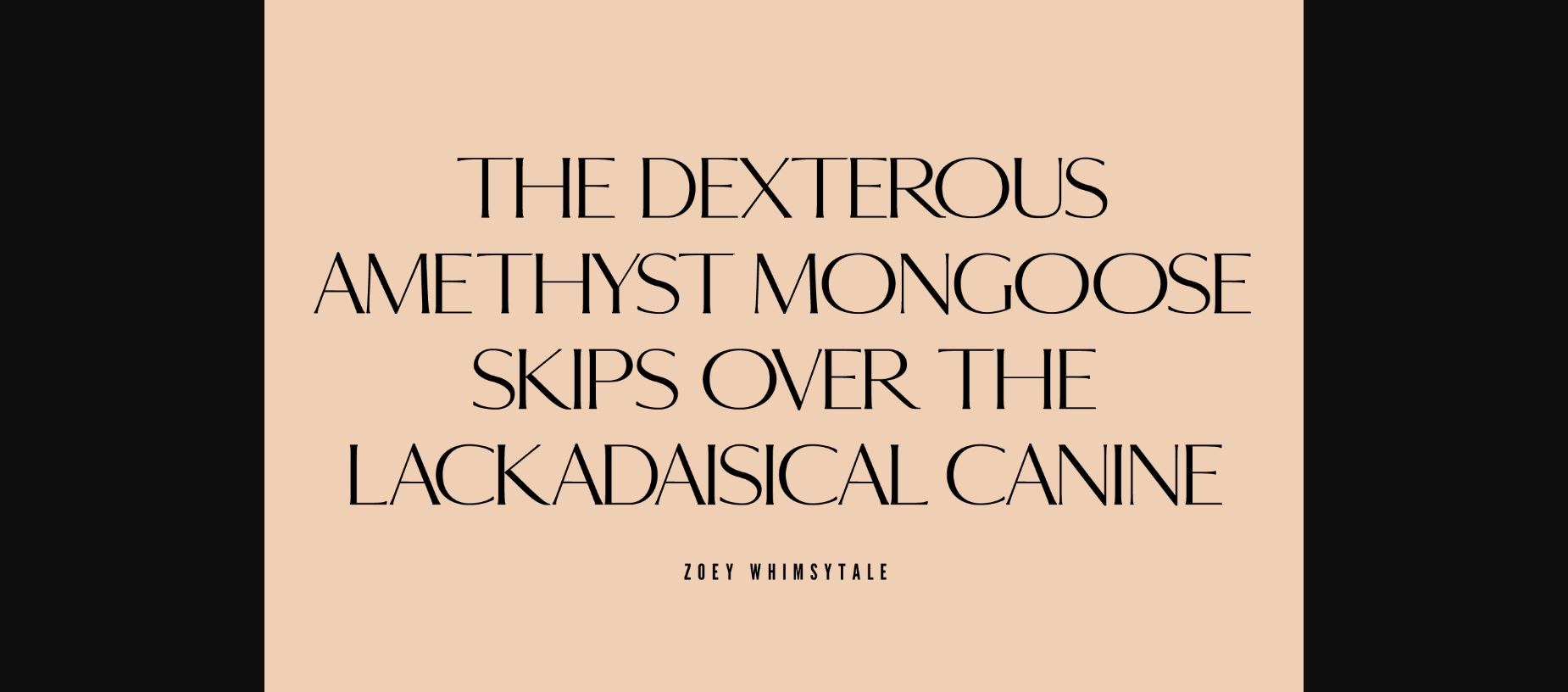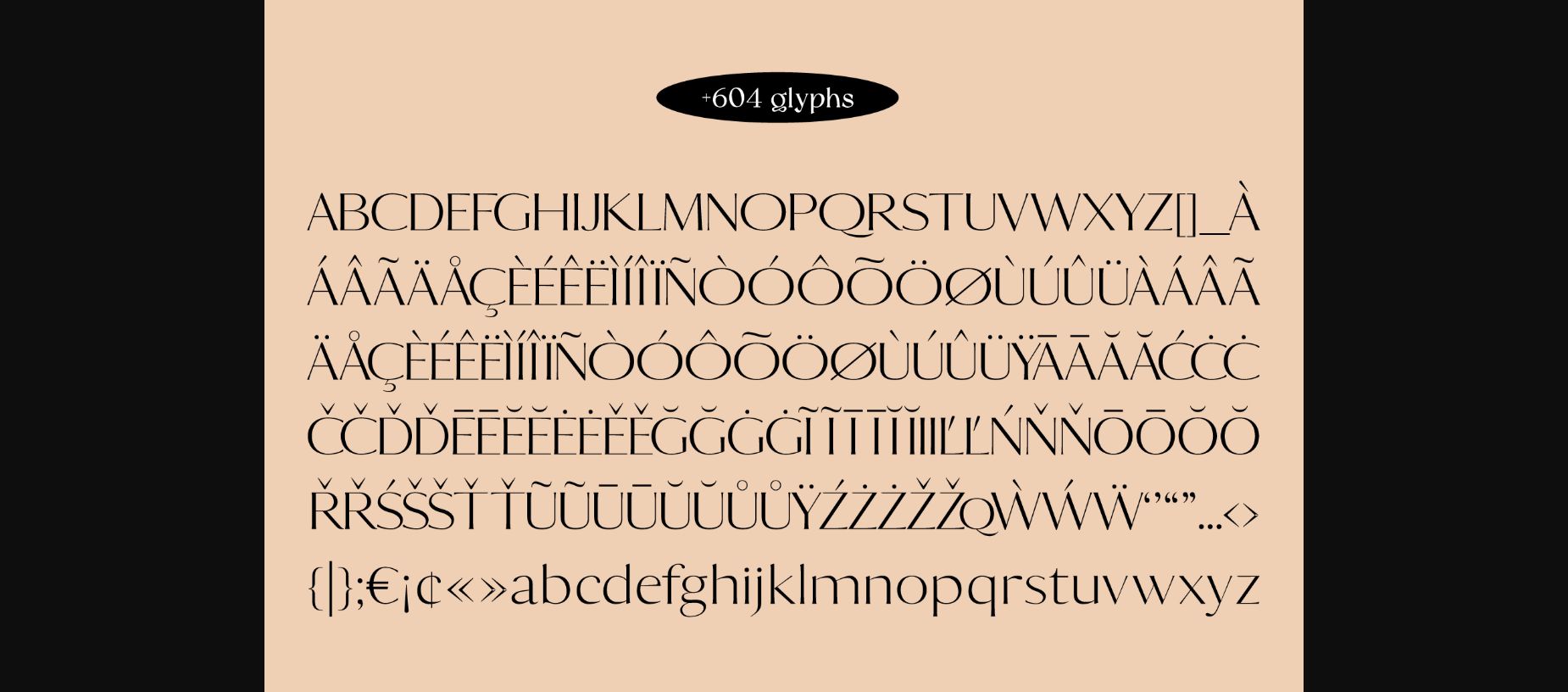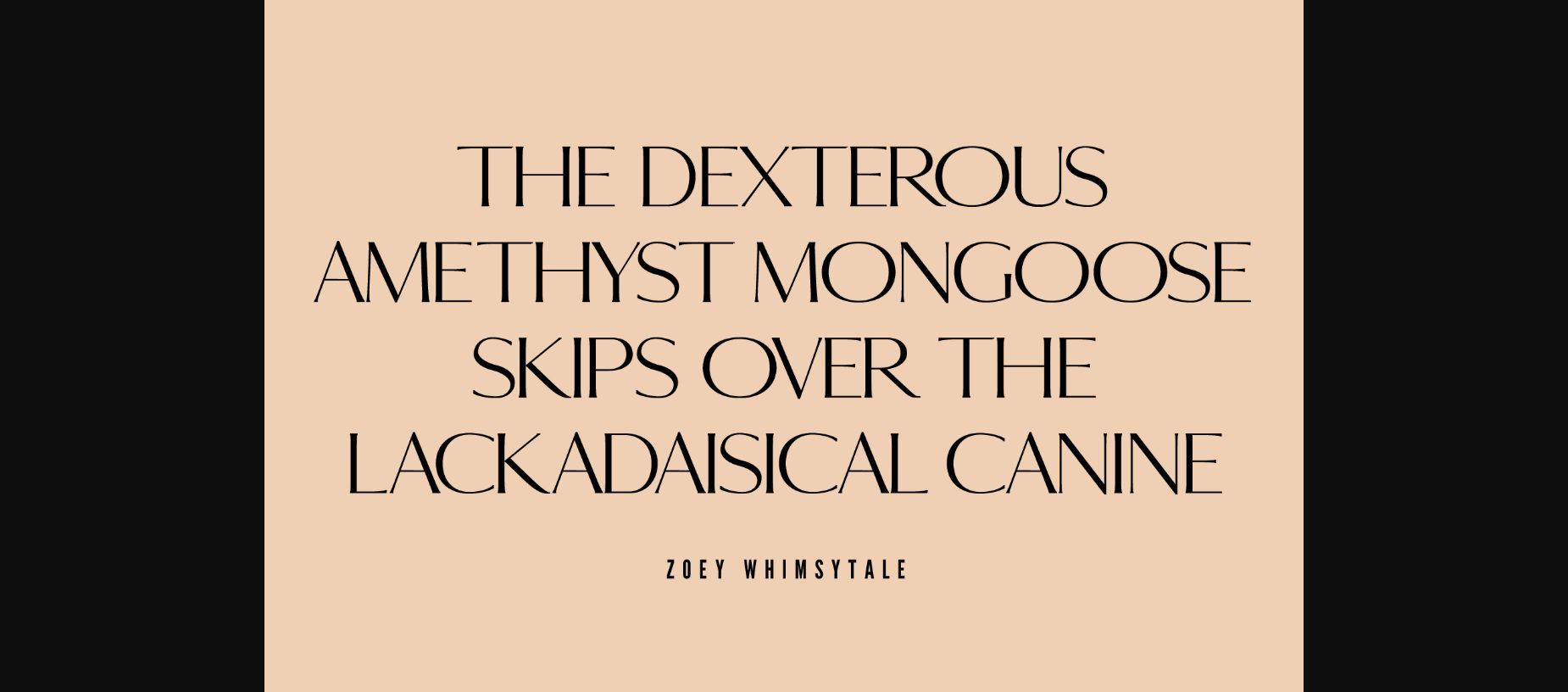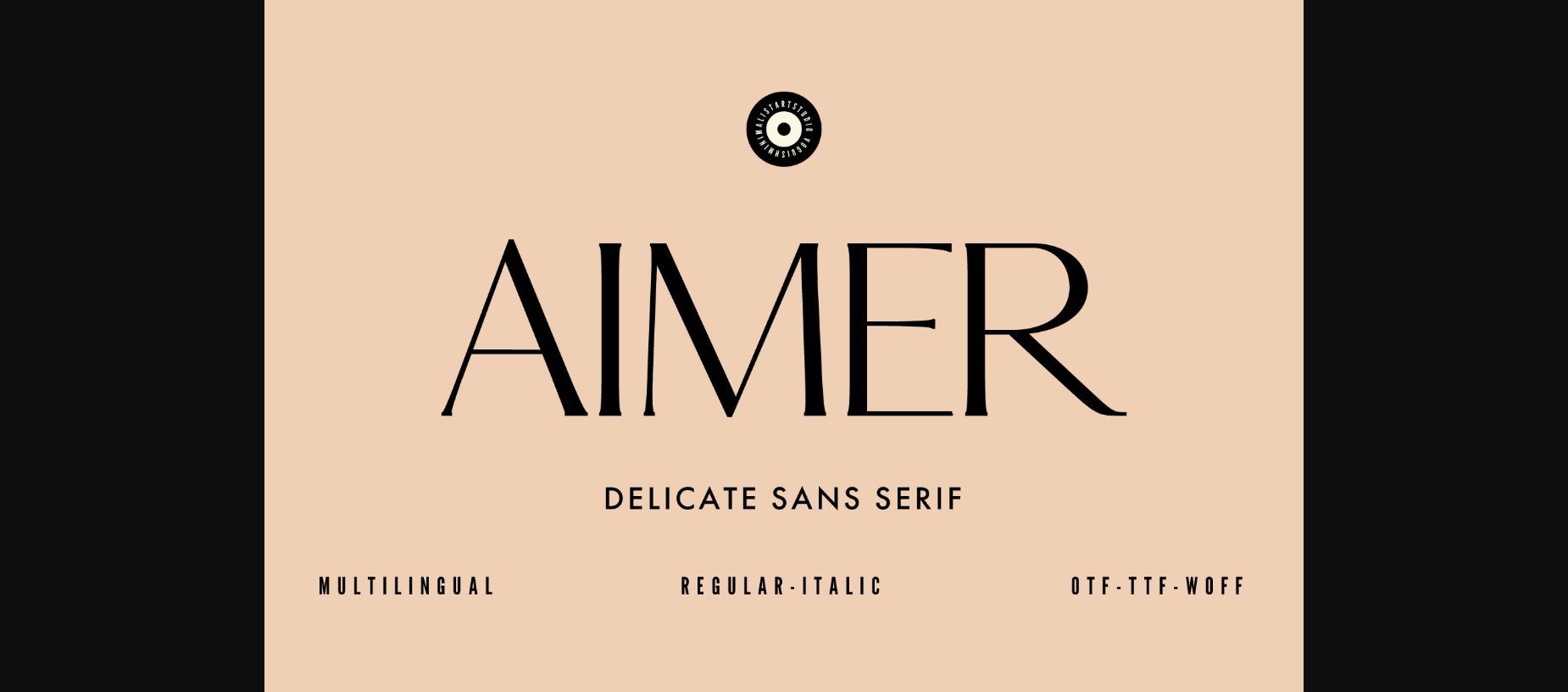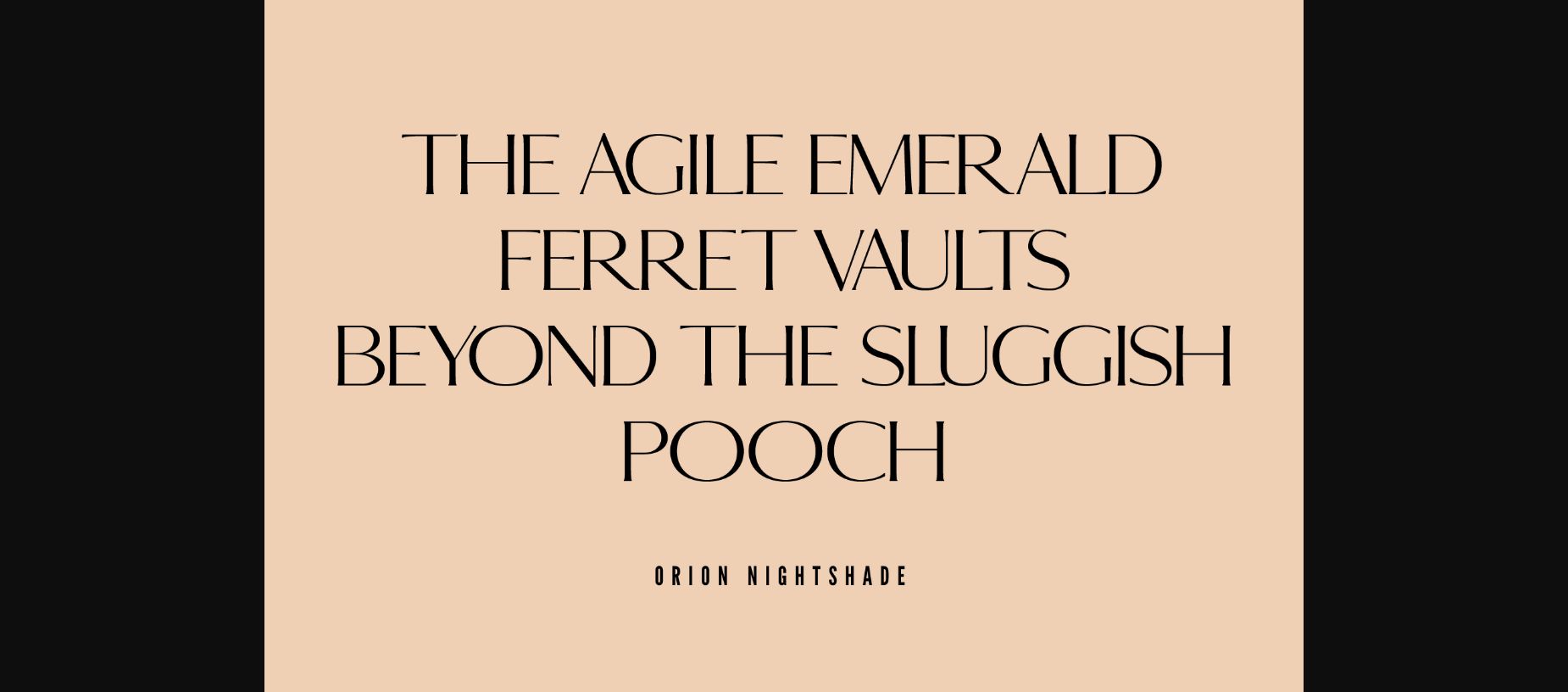
About Aimer Font
Discover Aimer, the epitome of modern elegance – a minimalist, delicate, chic, and versatile sans-serif typeface. Its clean lines and balanced strokes exude effortless refinement, making it perfect for luxurious branding, captivating headlines, and more. Meticulously crafted with impeccable kerning, Aimer unlocks a world where simplicity meets sophistication. Elevate your designs with Aimer’s charm and create timeless expressions of modern elegance.